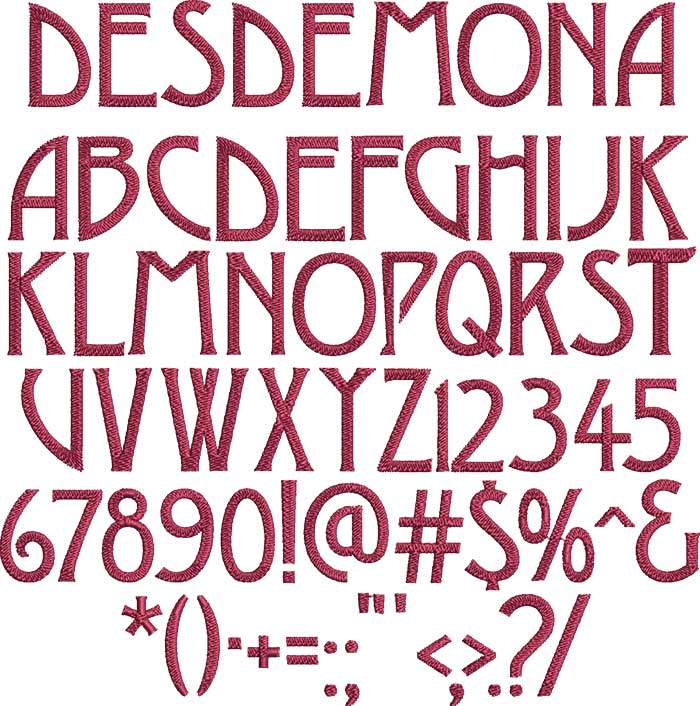
BX Embroidery Font: Desdemona
BX Embroidery Font: Desdemona Font Bundle (4 sizes) is a stylized, sans serif machine embroidery font that includes A-Z, a-z, 0-9, and punctuation; 4 sizes.
Desdemona is a stylized, sans serif machine embroidery font that includes A-Z, a-z, 0-9, and the following punctuation: !@#$^%&*()-+=:;”‘,.?/<> (85 total characters).
Each character in this alphabet is individually manually digitized; we do not use a TrueType to Stitches conversion utility to create our fonts. Additionally, stitch attributes such as stitch type, density, compensation, and underlay are optimized for each size available. Choose the size closest to what you need. Shrinking the smallest size is not recommended.
Our fonts were manually digitized; we do not use a TrueType to Stitches conversion utility to create our fonts. Plus, stitch attributes such as density, compensation, and underlay are optimized for each size available.